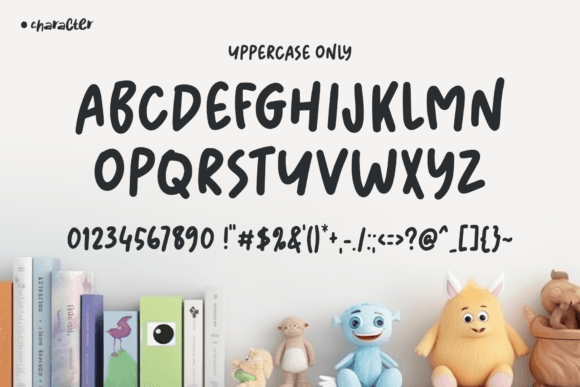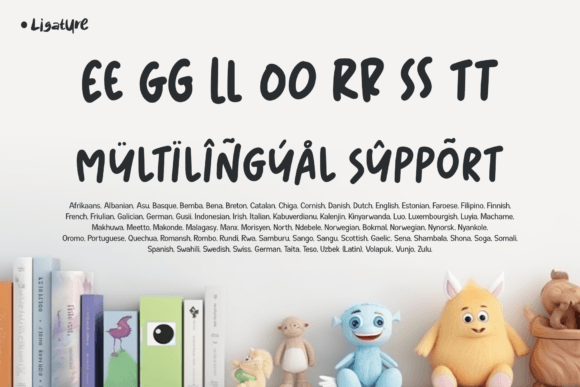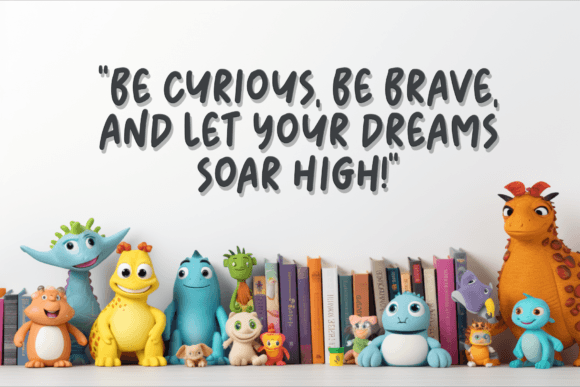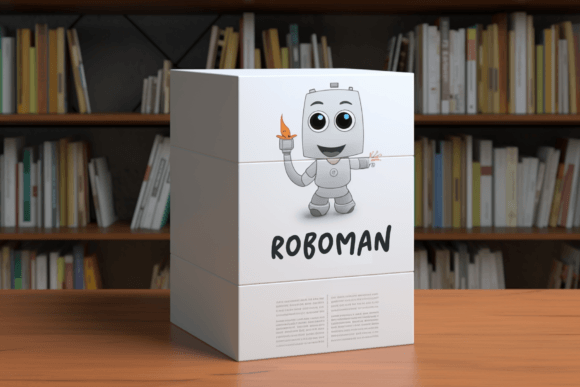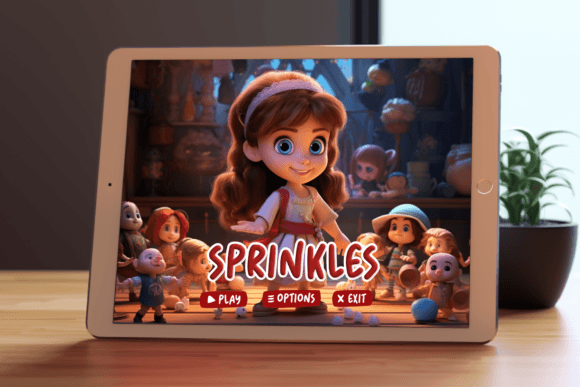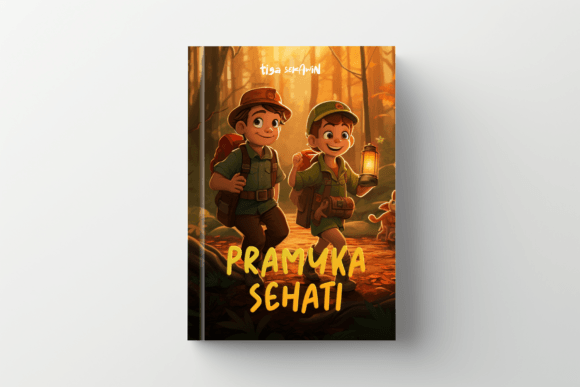
Introduction to Hipster Hatch Font
Do you remember the moment when a burst of creativity hits you, and you’re suddenly overflowing with ideas for your next design project? For many designers, it’s a thrilling experience that can be triggered by the simplest things – a beautiful sunset, a quirky coffee shop, or even a font that sparks imagination. The Hipster Hatch Font is one such design resource that can add a dash of whimsy and creativity to your work, making it perfect for children’s design projects.
As a designer working on a high-quality project, you’re constantly on the lookout for unique design elements that can elevate your work. The Hipster Hatch Font is a valuable addition to your design arsenal, offering a free download with a transparent background that can be easily integrated into your creative project. With its bold and captivating presence, this font is sure to make a lasting impression on your audience.
- Unique, hand-drawn design with a touch of vintage flair, perfect for creative projects and design resources.
- Perfect for use in various creative projects, including logos, branding, packaging, and editorial design, as a design resource.
- Unique characteristics include hand-drawn elements and subtle texture, adding a touch of personality to any design.
Honest Review: Hipster Hatch Font
I recently came across the Hipster Hatch Font, a free download that I thought would be perfect for my next design project. At first glance, I was impressed by the high quality of the font, which features a transparent background and a unique, hand-drawn aesthetic.
- ✨ The font’s quirky, vintage vibe is perfect for creative projects that require a touch of personality.
- ✨ The high quality of the font means that it scales well and looks great in both print and digital applications.
- ✨ The transparent background makes it easy to layer over images and other design elements.
- ⚠️ The font may not be suitable for projects that require a more formal or professional look.
Once you have added the font to your design, you can start creating with it. The Hipster Hatch Font is perfect for creative projects that require a unique and eye-catching look. You can use it for headings, titles, or even as a background texture with a transparent background.
The Hipster Hatch Font is suitable for a variety of design projects, including:
- Branding and identity design
- Print and digital advertising
- Graphic design and illustration
Yes, the Hipster Hatch Font has a transparent background, making it ideal for designs that require a seamless integration with other graphics or backgrounds. This feature is especially useful for designers working on creative projects that involve layered compositions.